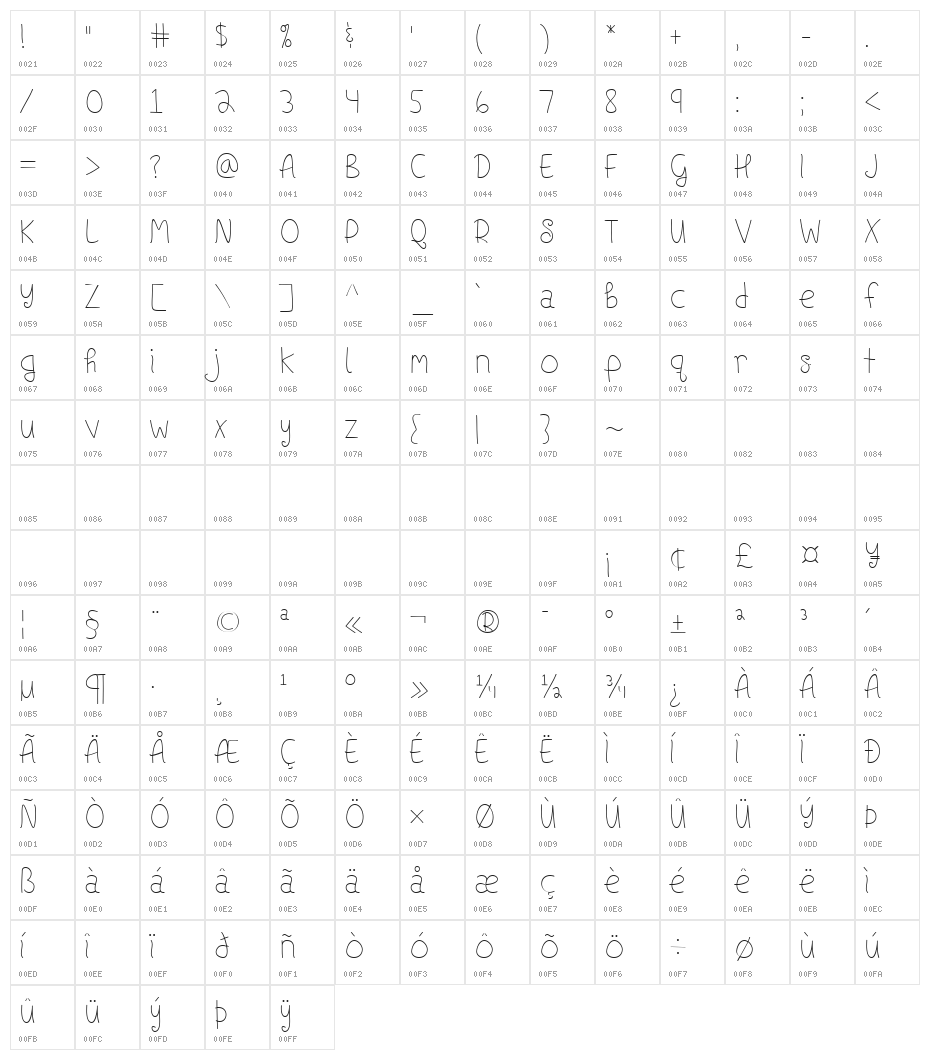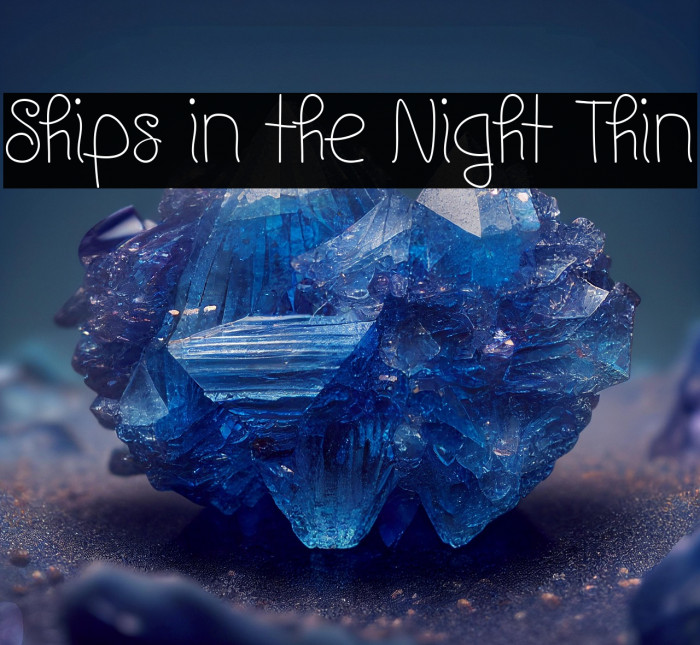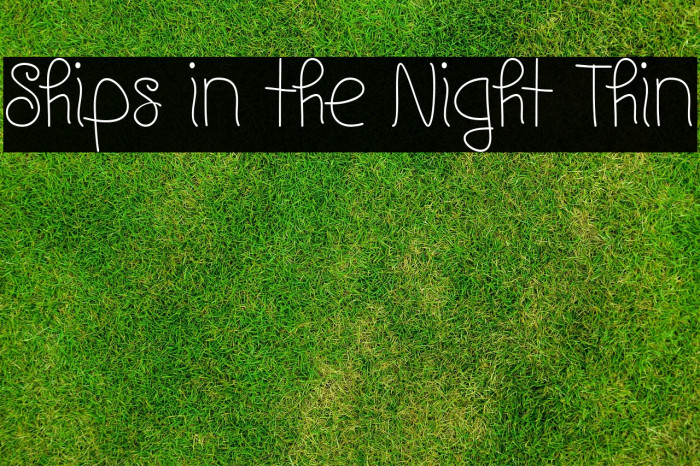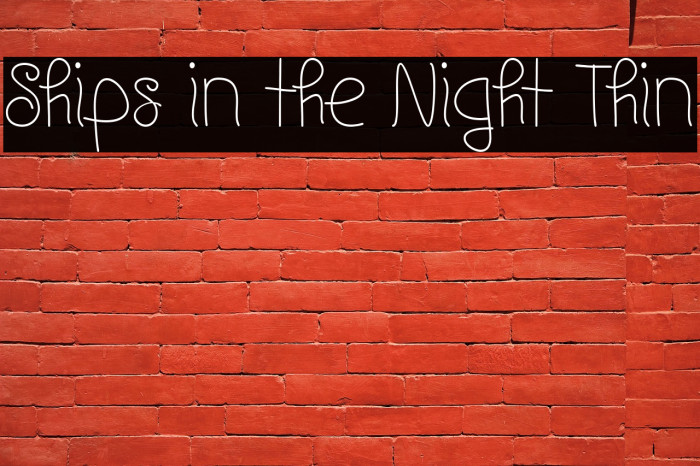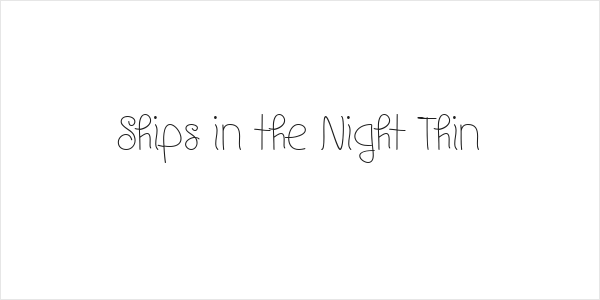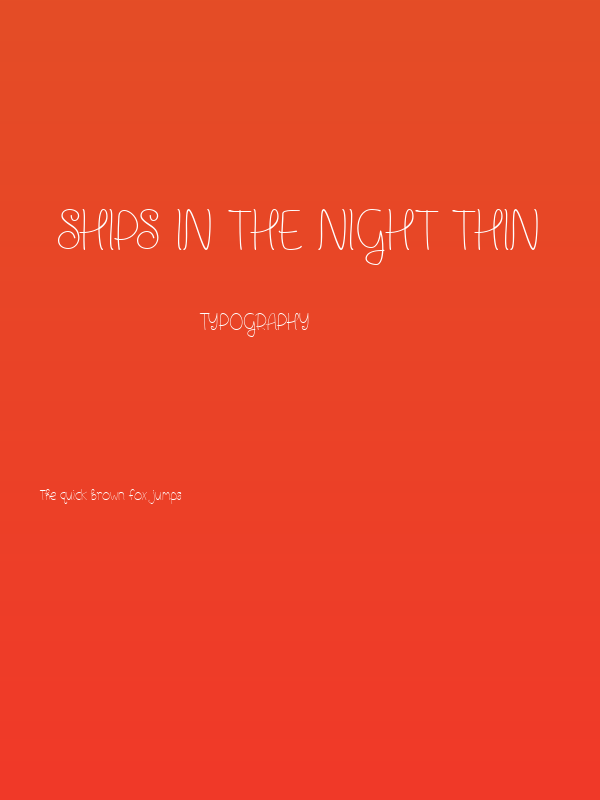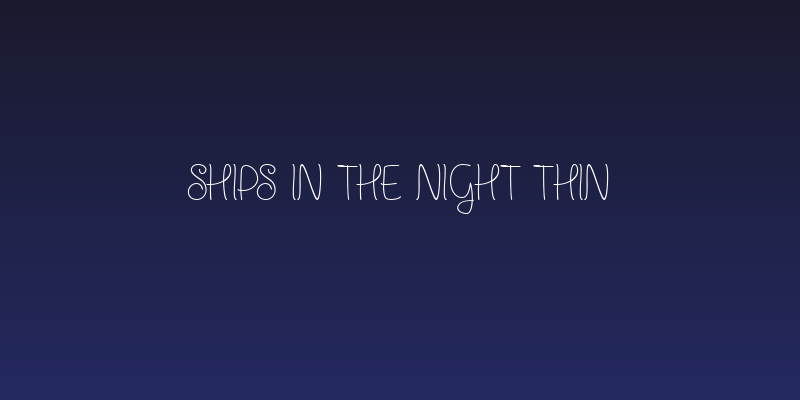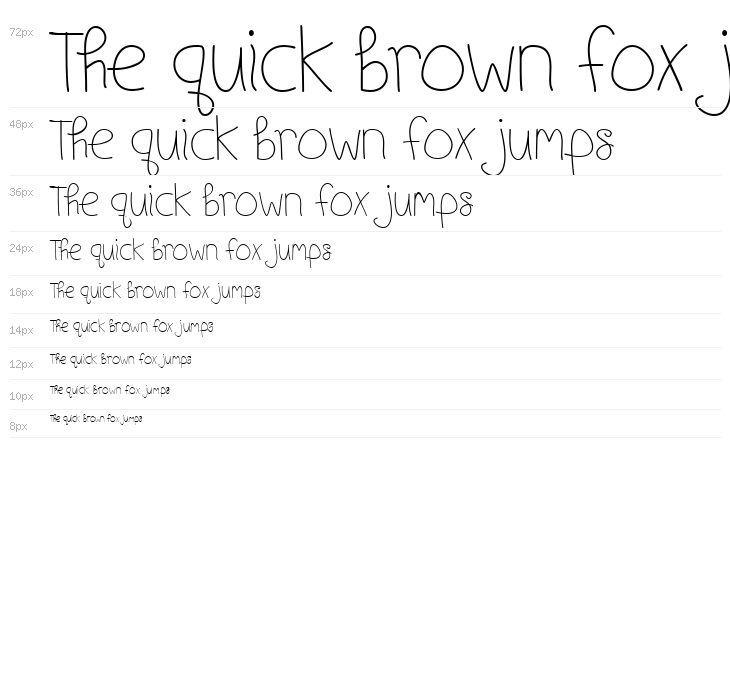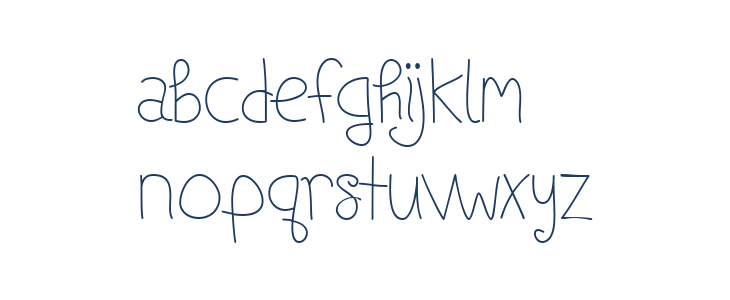
Ships in the Night Thin Font
Ships in the Night Thin Description
This font features a whimsical and playful handwritten style, characterized by its thin and delicate strokes. The letters are tall and slightly irregular, giving them a casual and informal appearance. The uppercase and lowercase letters maintain a consistent flow, with some characters displaying unique loops and curves that add to the font's charm. The numerals are straightforward yet retain the font's overall playful nature. Special characters are included, maintaining the same thin and airy quality. This font is ideal for projects that require a lighthearted and approachable feel.
| Use Case | Headlines, Casual text, Invitations |
| Proposed Projects | Greeting cards, children's books, casual invitations, and playful branding materials. |